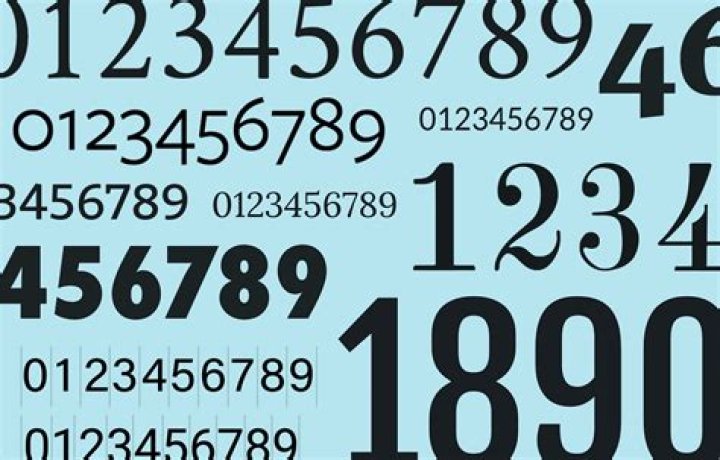
What are font numbers?
There’s no such thing as a number font, per se. Usually, a well-made and comprehensive font will include numbers and other symbols in its design. Take Karla, a font by Google Fonts. It’s a grotesque sans serif font whose numbers are in the same style as the whole font.
What are the different fonts of writing?
Several types of fonts are;
- Old style serif.
- Transitional serif.
- Square sans-serif.
- Geometric sans-serif.
- Formal script.
- Casual script.
What font is easiest to read for numbers?
The Best Number Fonts
- Robinson Typeface.
- Leaner Typeface.
- BW Seido.
- Klinic Slab.
- Abril Fatface.
- Monoton.
- Montserrat.
- Lato. Lato is another popular sans-serif Google Font that includes easy-to-read, distinctive number characters.
What is the most realistic handwriting font?
20 Best and Beautiful Free Handwriting Fonts in 2019
- Little Day Font.
- Herbarium font.
- Selima Script.
- Seascape script.
- Balqis Font.
- Beattingvile Beautiful Script Font.
- Basfar Handwriting Font.
What are numbernumber fonts?
Number fonts is a style that is dedicated to just the number letters. These letters may be roman numerals or old-style figures with varying heights.
What are the best fonts for numerology?
001 Interstellar Log is yet another amazing number font, which is one of the prominent ones among the upscale numeral font styles. In a nutshell, this is a sci-fi enlivened number text style that has certain techno impacts on it.
What is the best font for numbers and alphabet?
Pumpkin – Alphabet & Numbers Font Pumpkin is another unique font that comes with a hand-crafted design. This font comes with the complete set of the alphabet and matching numerals. You can use the font to design beautiful posters, website headers, social media posts, and much more.
What are the best fonts for designing banners?
The number font has a sci-fi inspired number style that also has a little techno influence in it. The design is futuristic and alien-like, as the name Interstellar suggests. It is an ideal number font for designing banners and graphics for a gaming event, or a cosplay competition. 4.